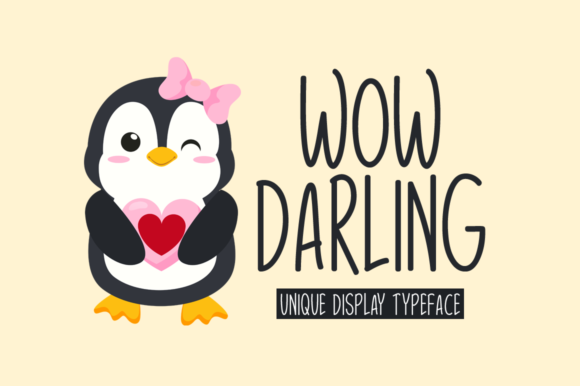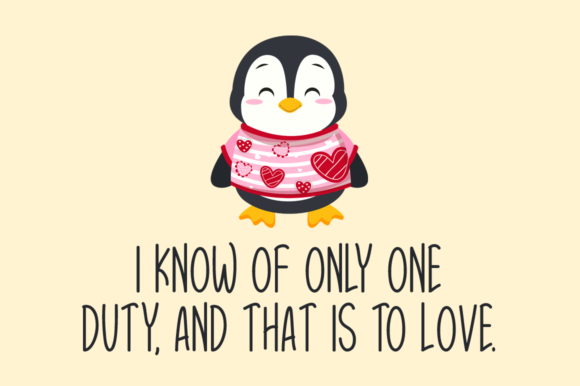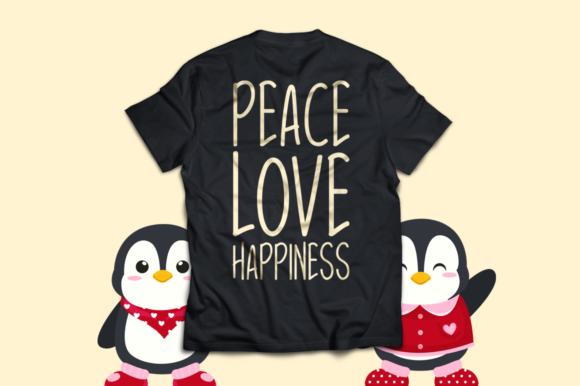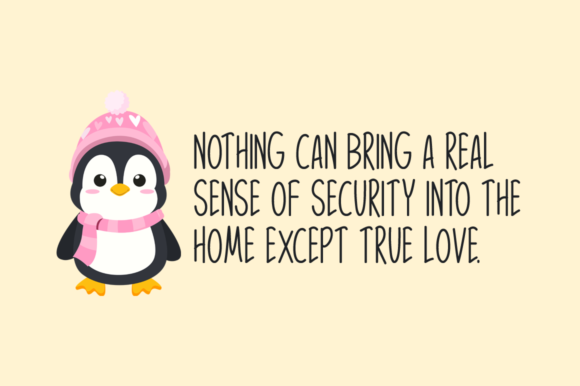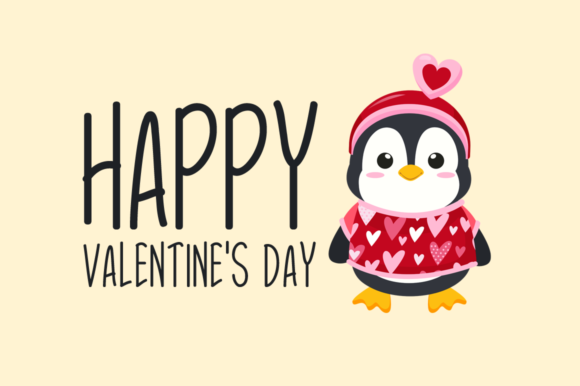
Wow Darling Font
Wow Darling is a narrow and simple handwritten font that adds a touch of elegance and versatility to your designs. With its clean and straightforward style, this font is well-suited for a wide range of casual and friendly design projects.
The narrow letterforms of Wow Darling make it an excellent choice for various applications. Whether you’re crafting handmade items, creating digital designs, designing presentations, or making greeting cards, this font will enhance the overall look and feel of your projects.
The simplicity of Wow Darling allows it to blend seamlessly with different design elements, making it highly adaptable and versatile. It can be paired with other fonts, graphics, or illustrations to create visually appealing compositions. The clean and legible nature of the font ensures that your message is communicated effectively.
Wow Darling is suitable for both personal and professional use. It can be used for social media graphics, blog headers, branding materials, invitations, and more. Its versatility makes it a go-to choice when you need a font that effortlessly complements your overall design aesthetic.
Whether you’re aiming for a minimalistic and modern look or a casual and friendly vibe, Wow Darling is a reliable font that will deliver. Its simplicity and narrow design make it an excellent choice for a wide range of projects, providing a touch of elegance and sophistication.
In summary, Wow Darling is a narrow and simple handwritten font that brings elegance and versatility to your designs. It is well-suited for casual and friendly projects, including crafting, digital design, presentations, and greeting card making. With its clean and straightforward style, Wow Darling is perfect for enhancing the visual appeal of your creations, regardless of the medium or platform.